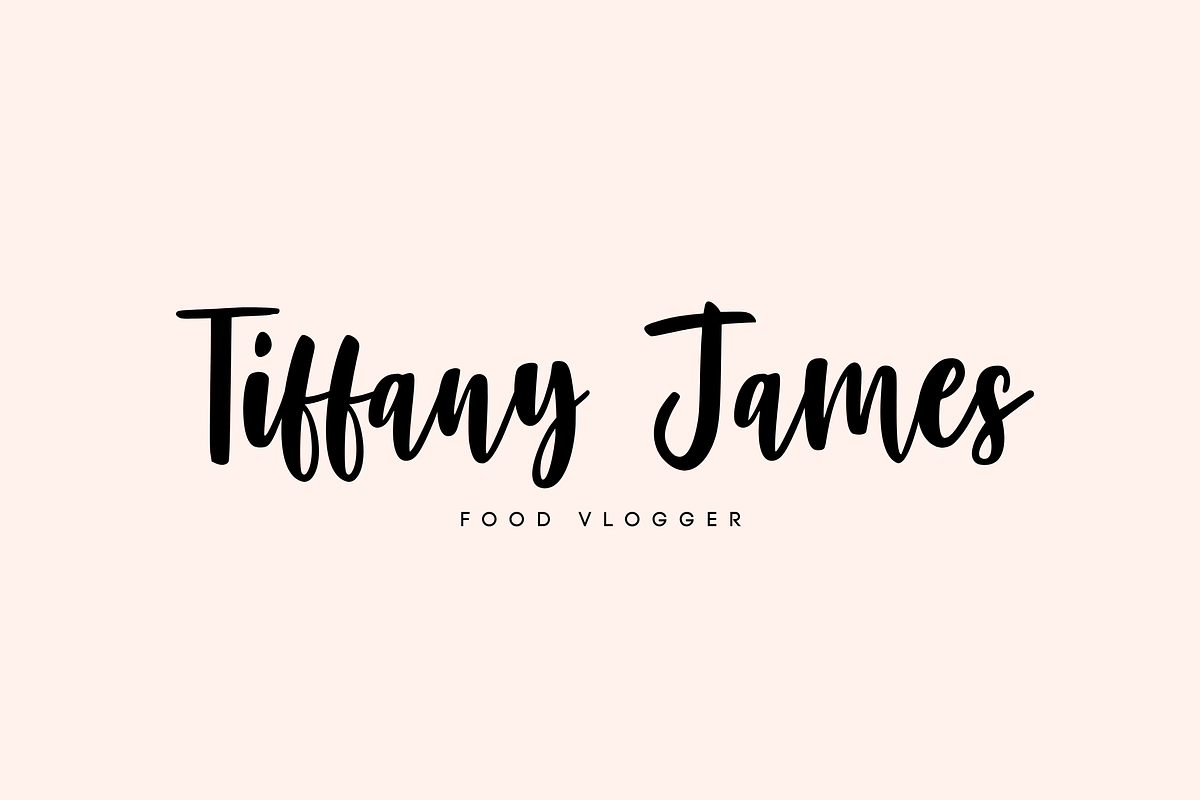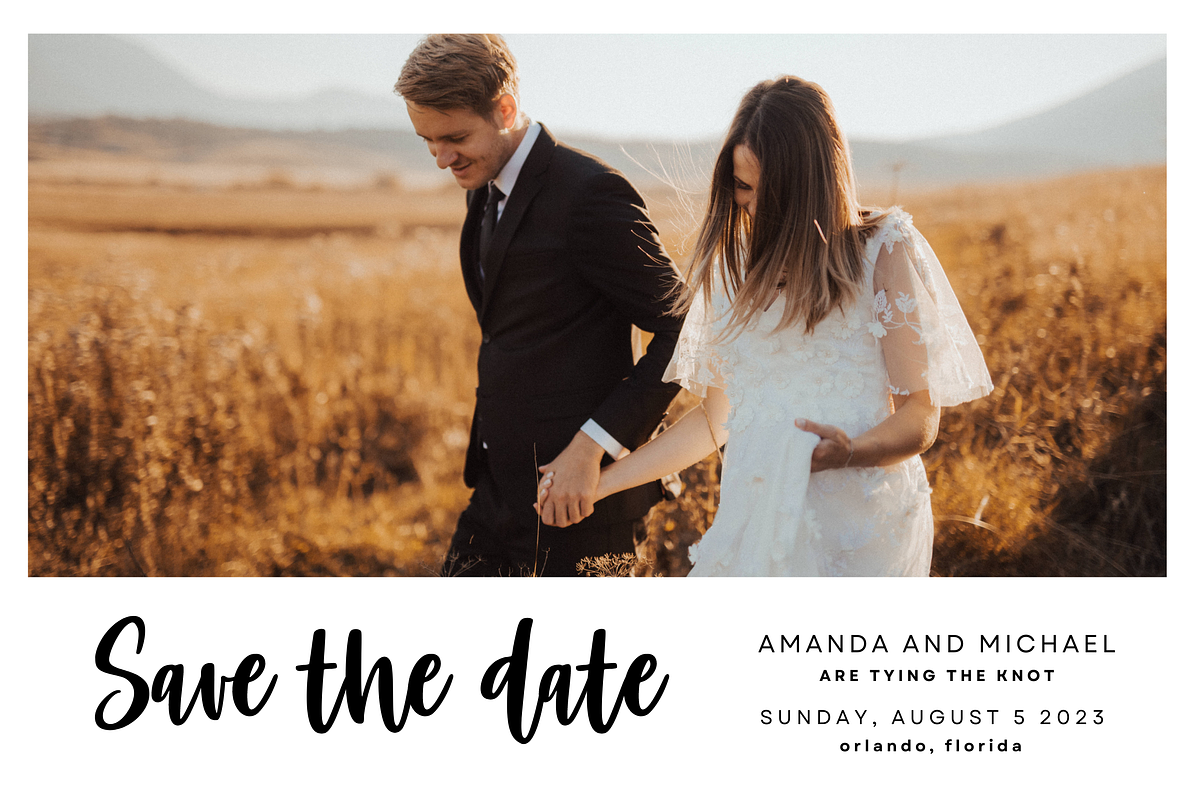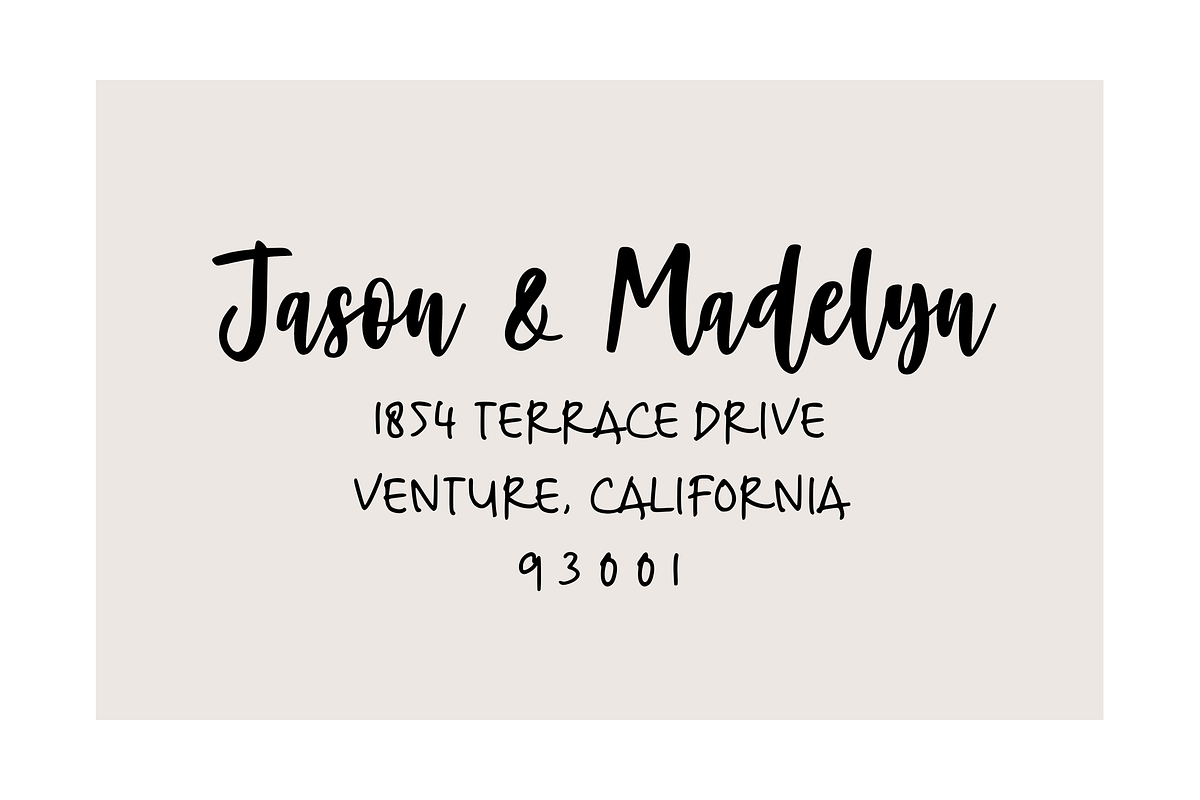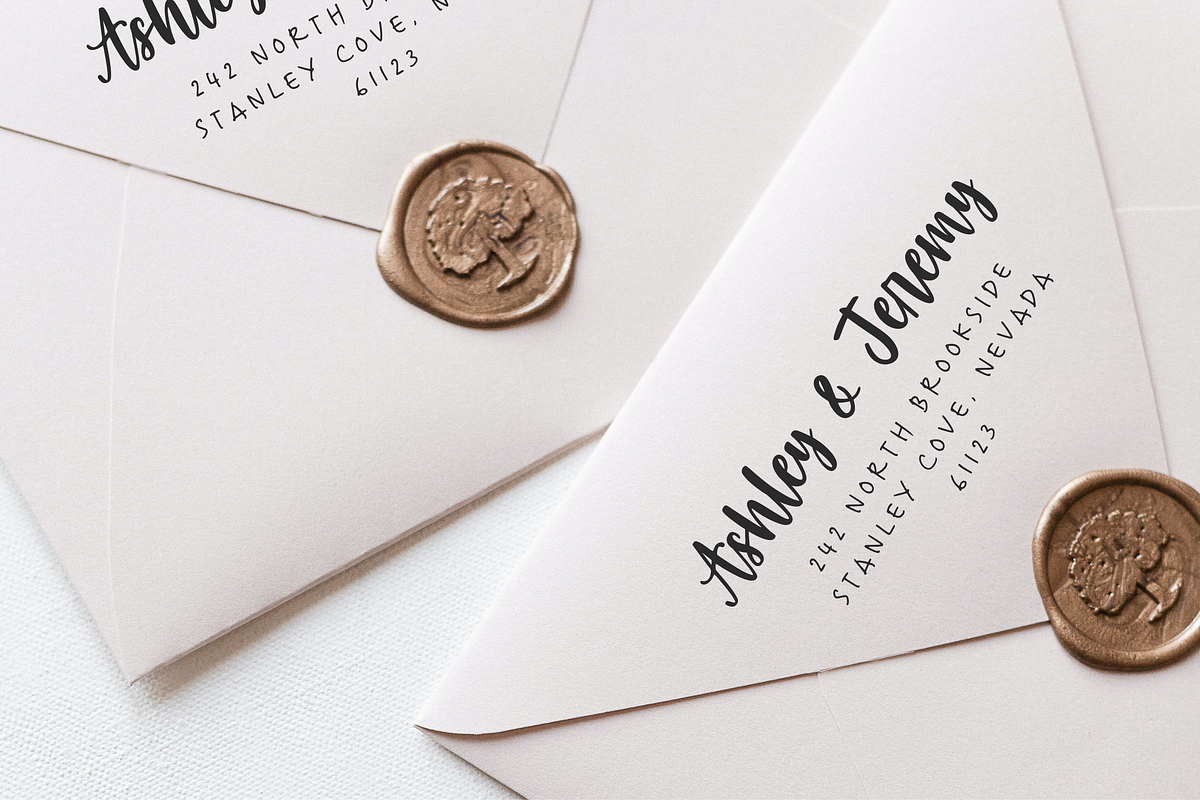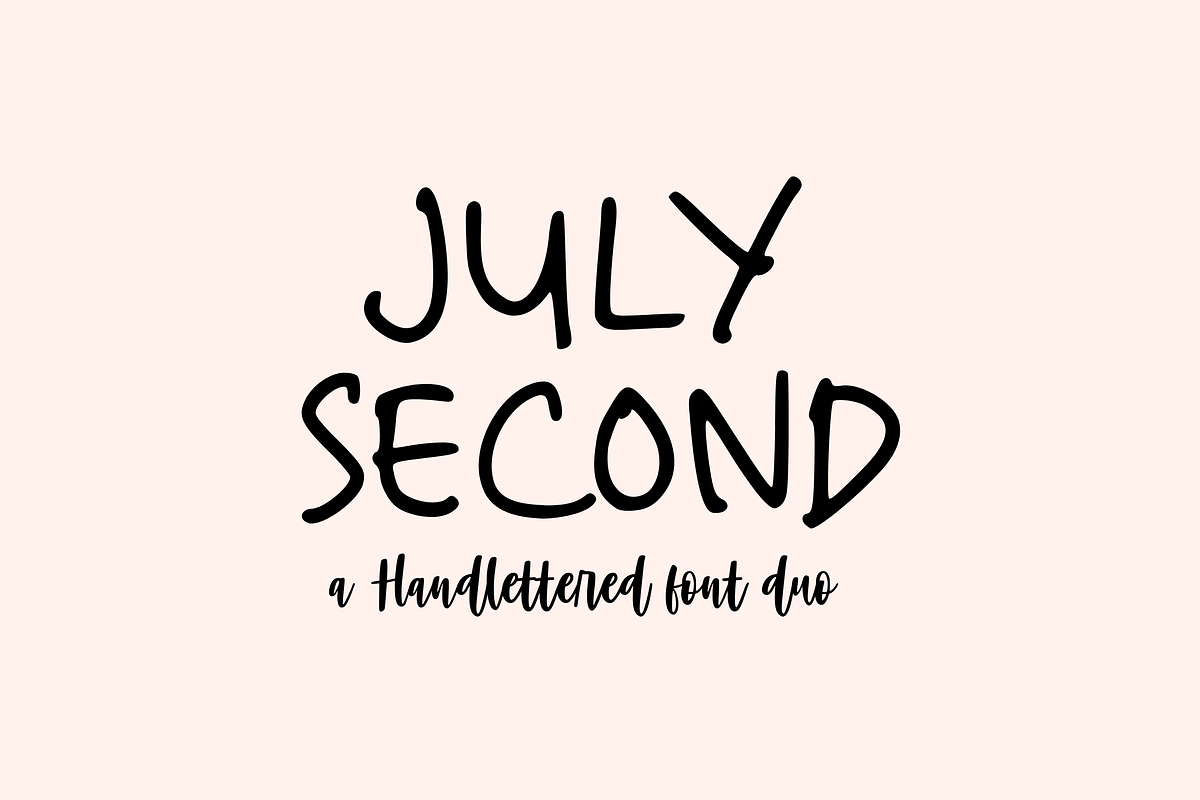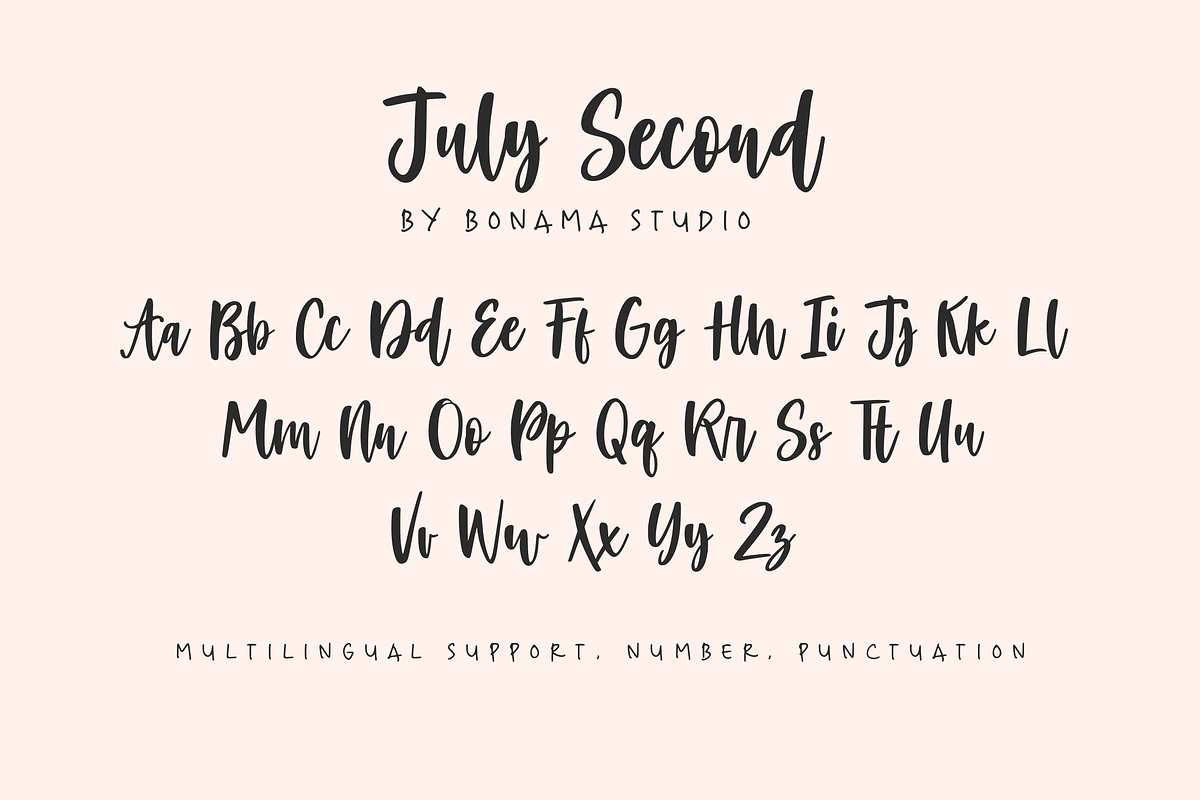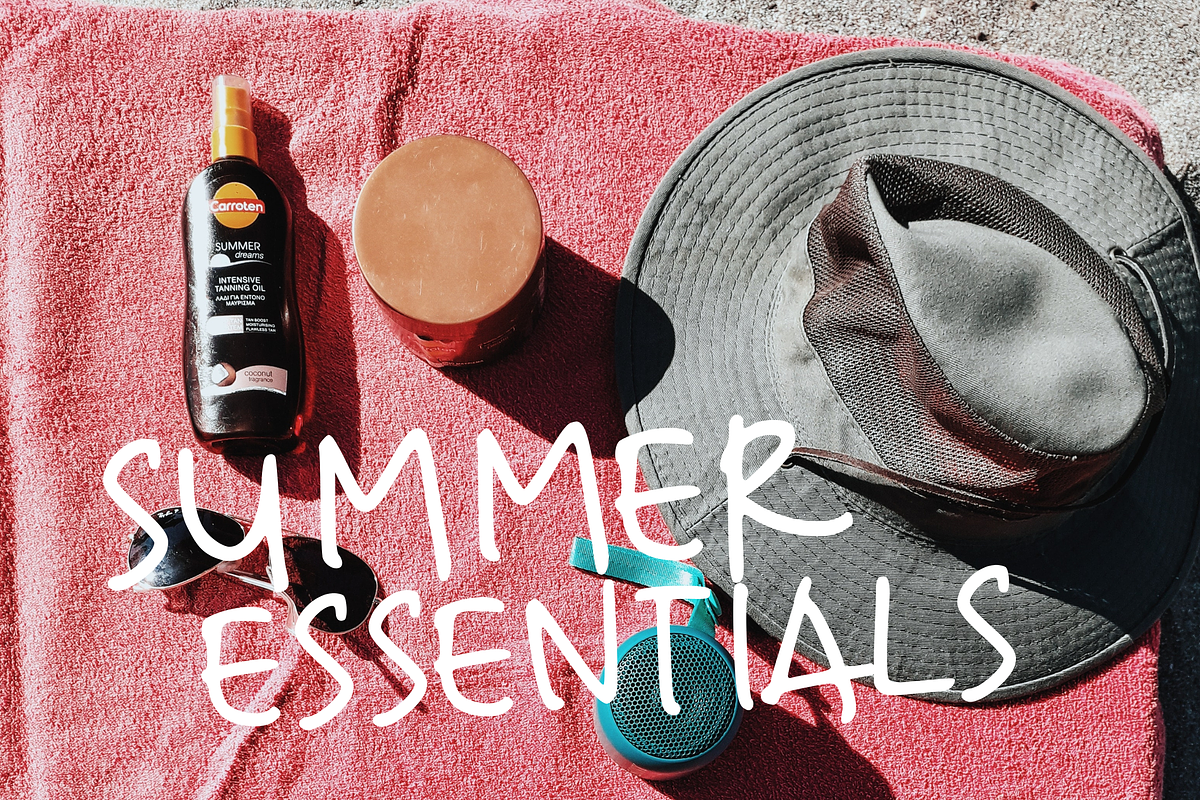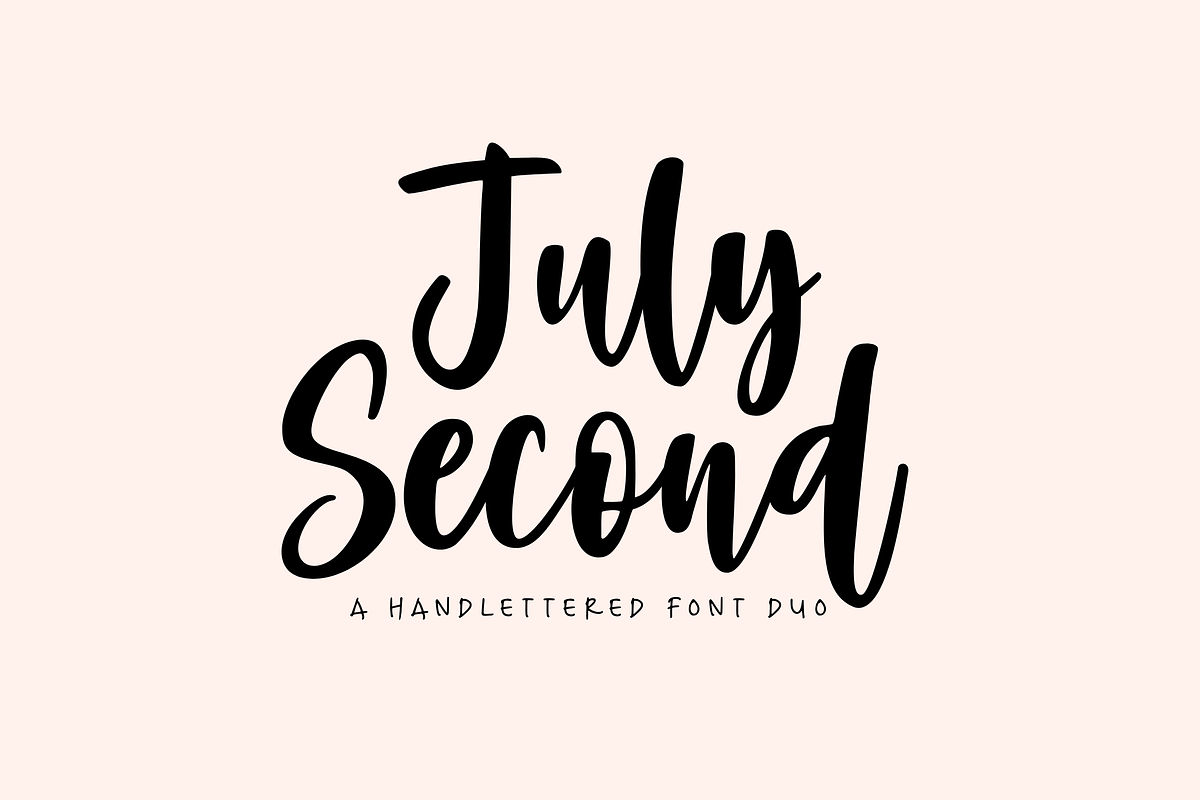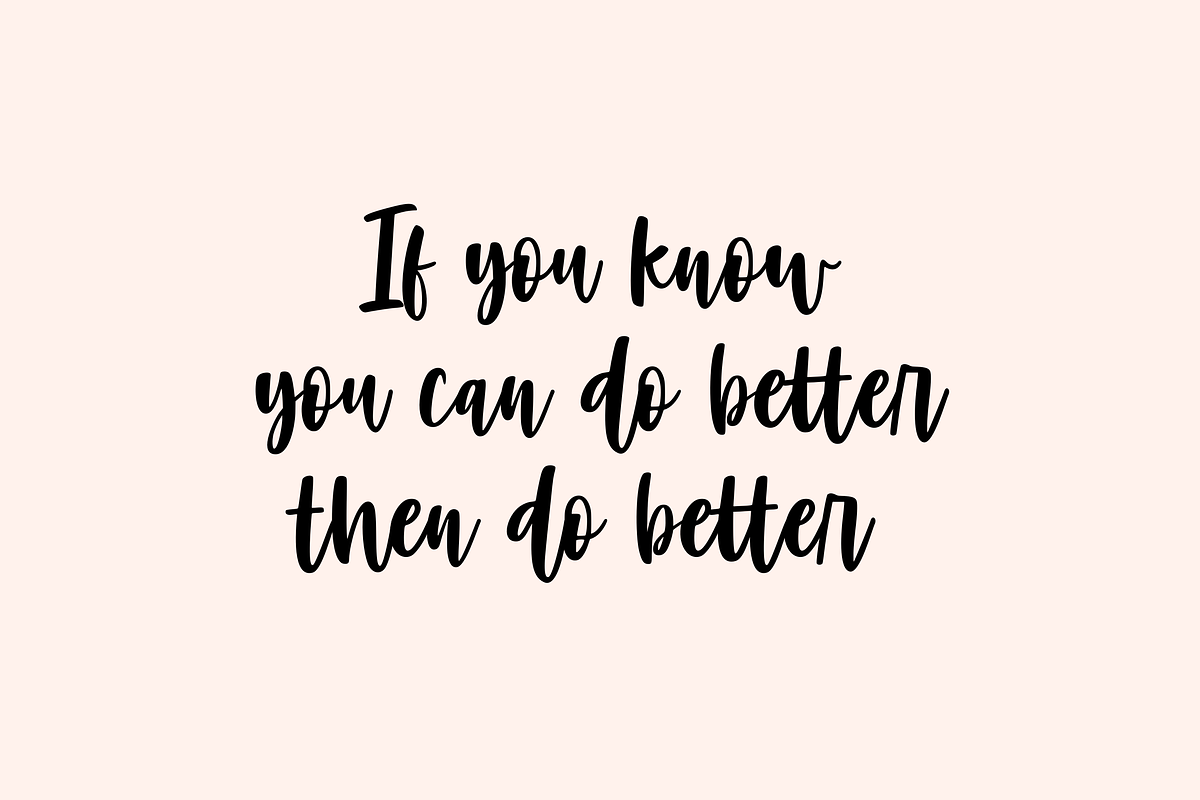
July Second Font Duo
Introducing, July Second - a handwritten script font. July Second will be perfect for stickers, greeting cards, logos, posters or anything that requires a fun and happiness look!
This font also suitable to be combined with san serif that will make your design more perfect. Also already PUA Encoded!